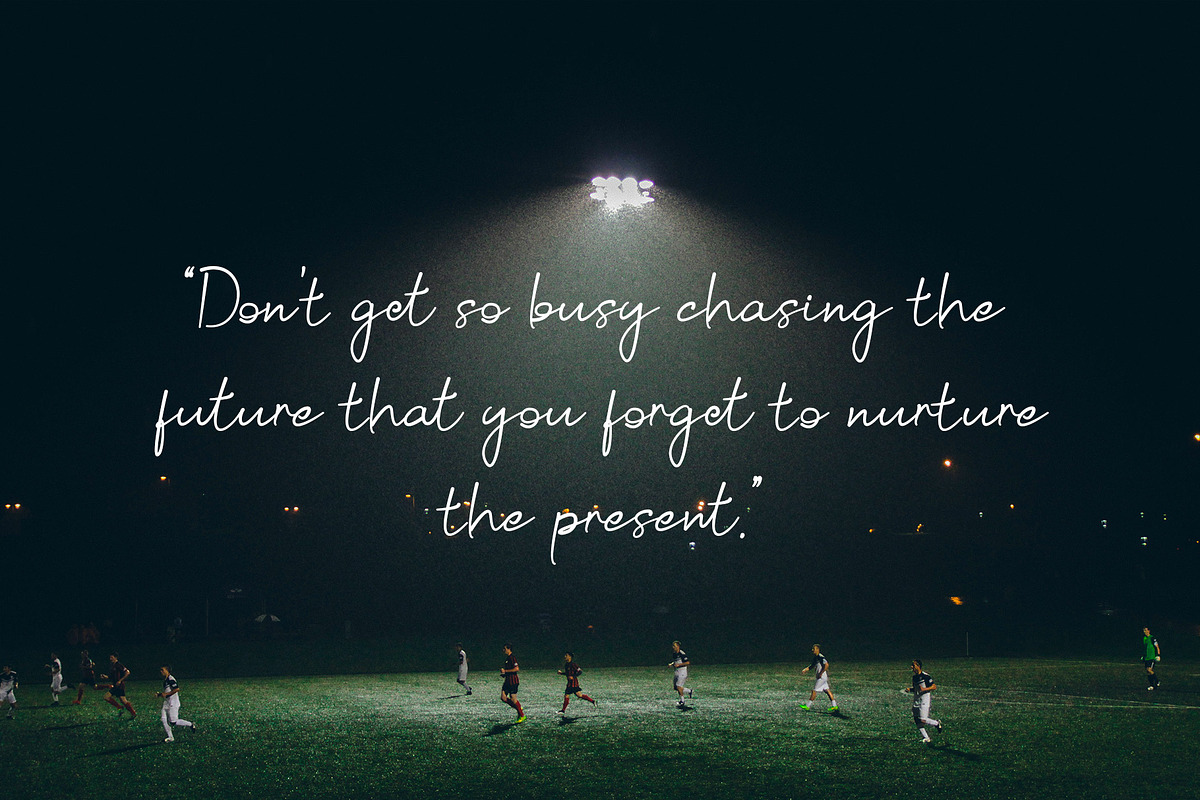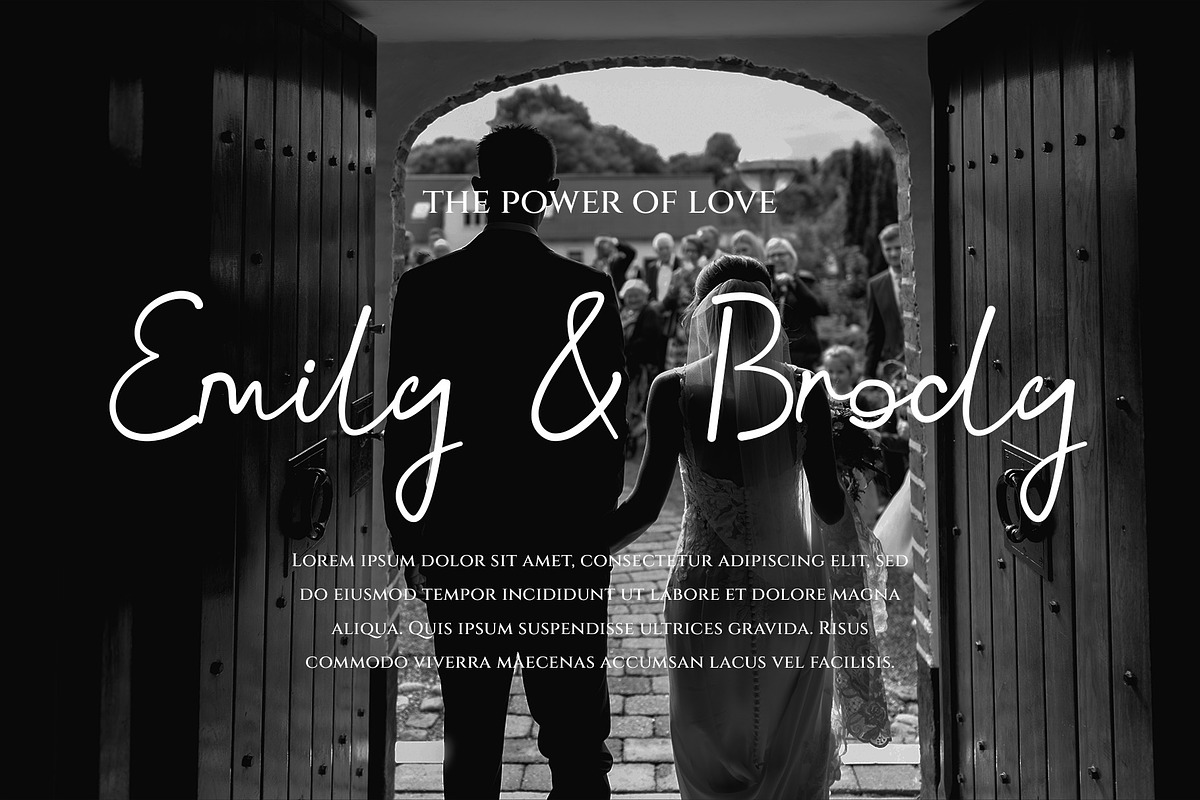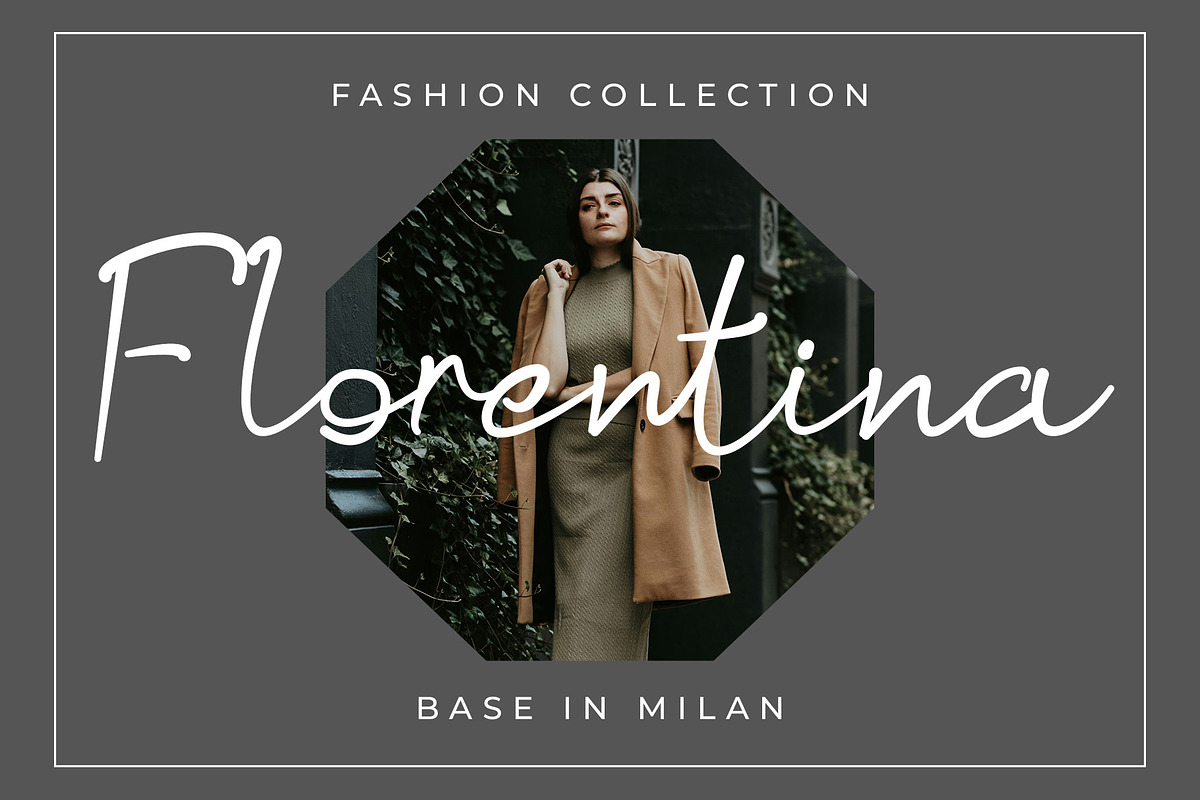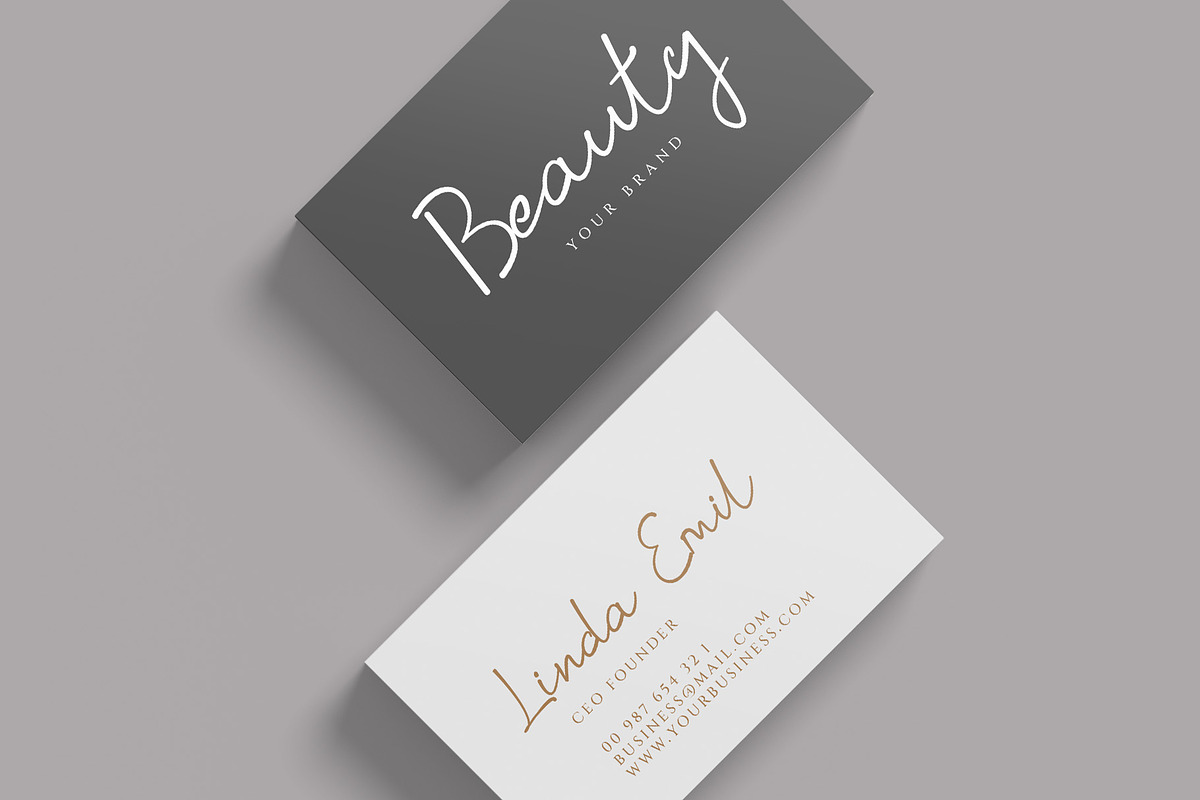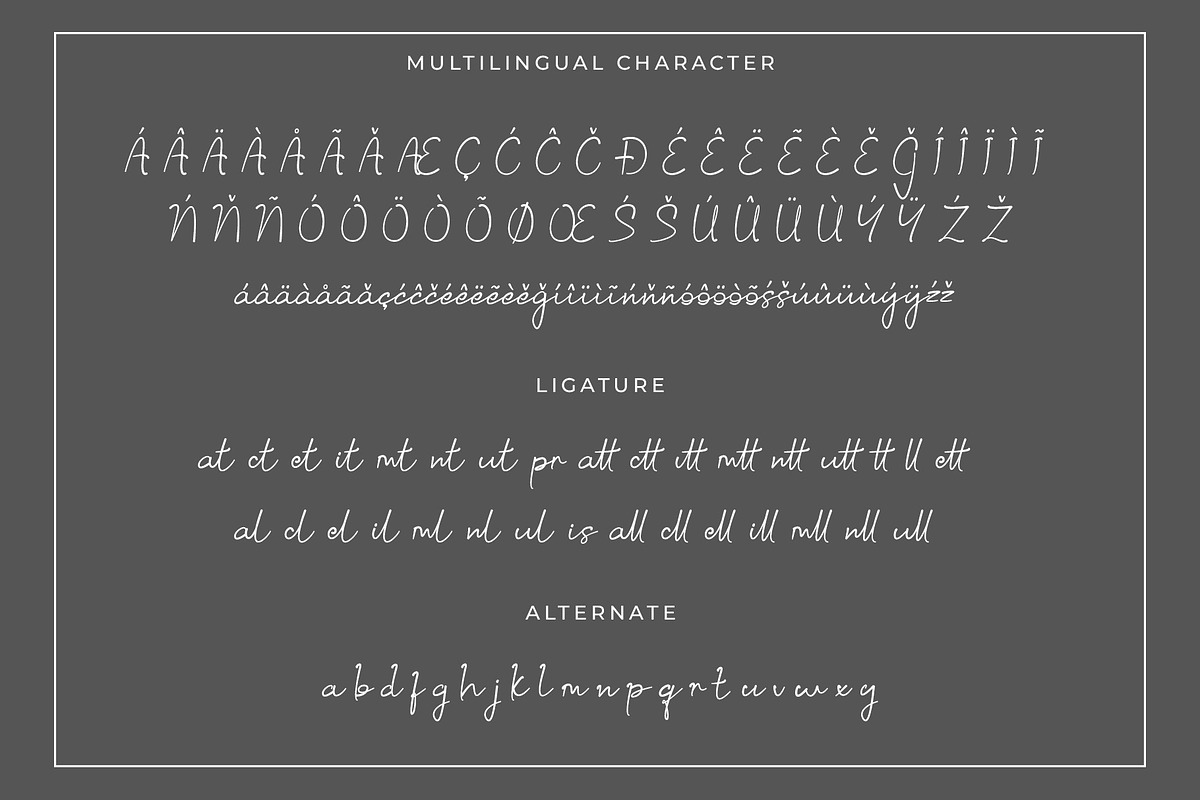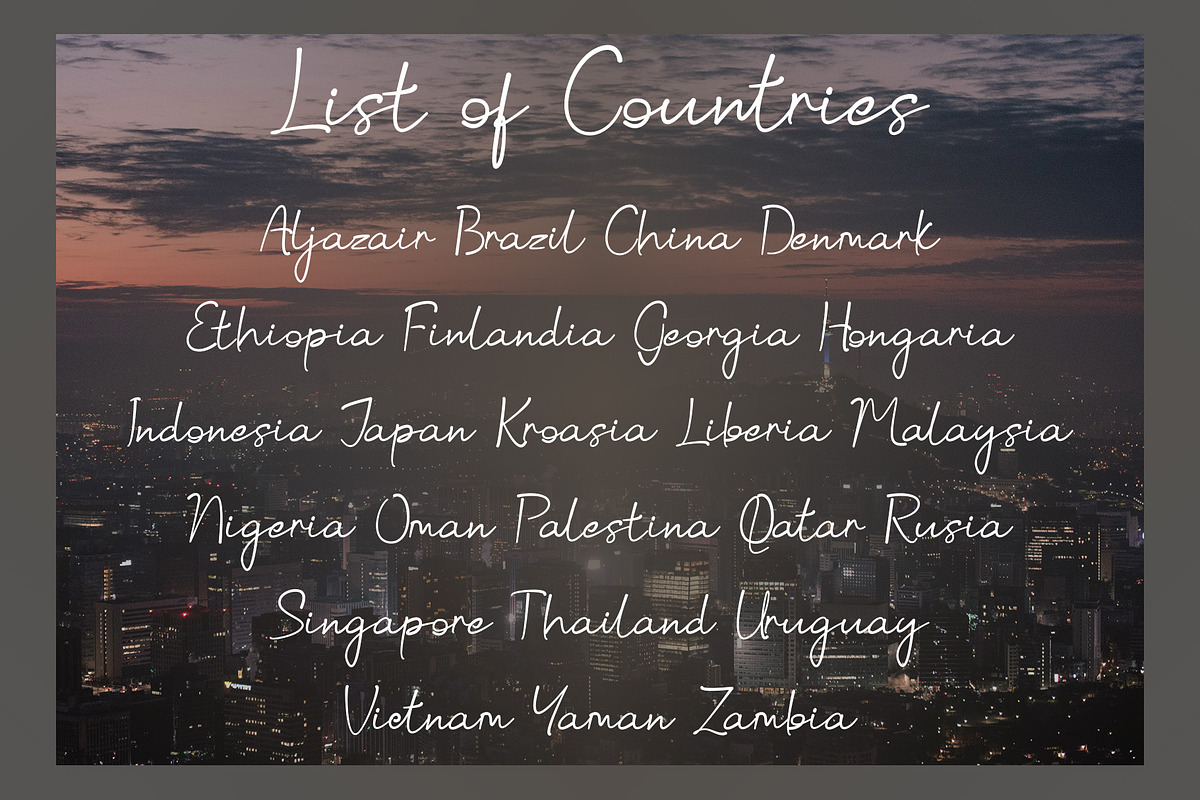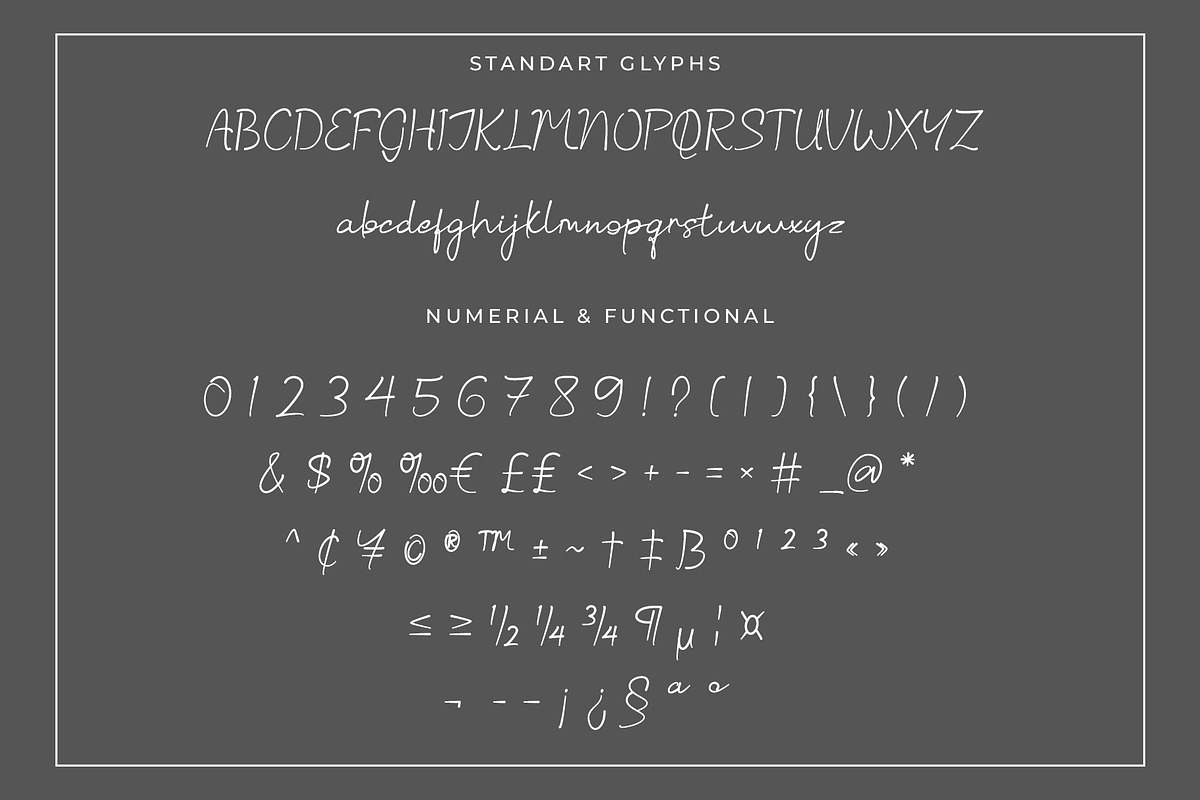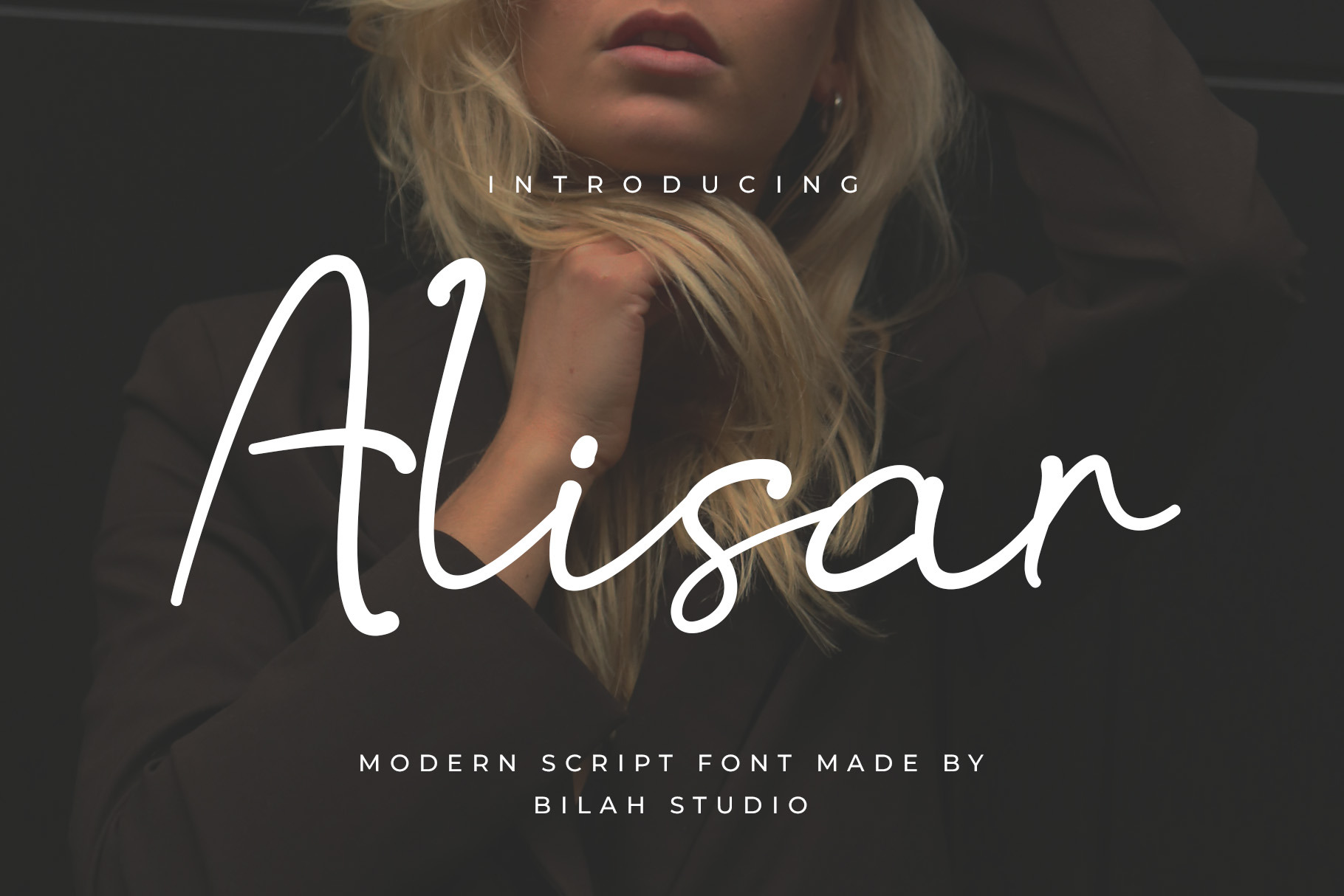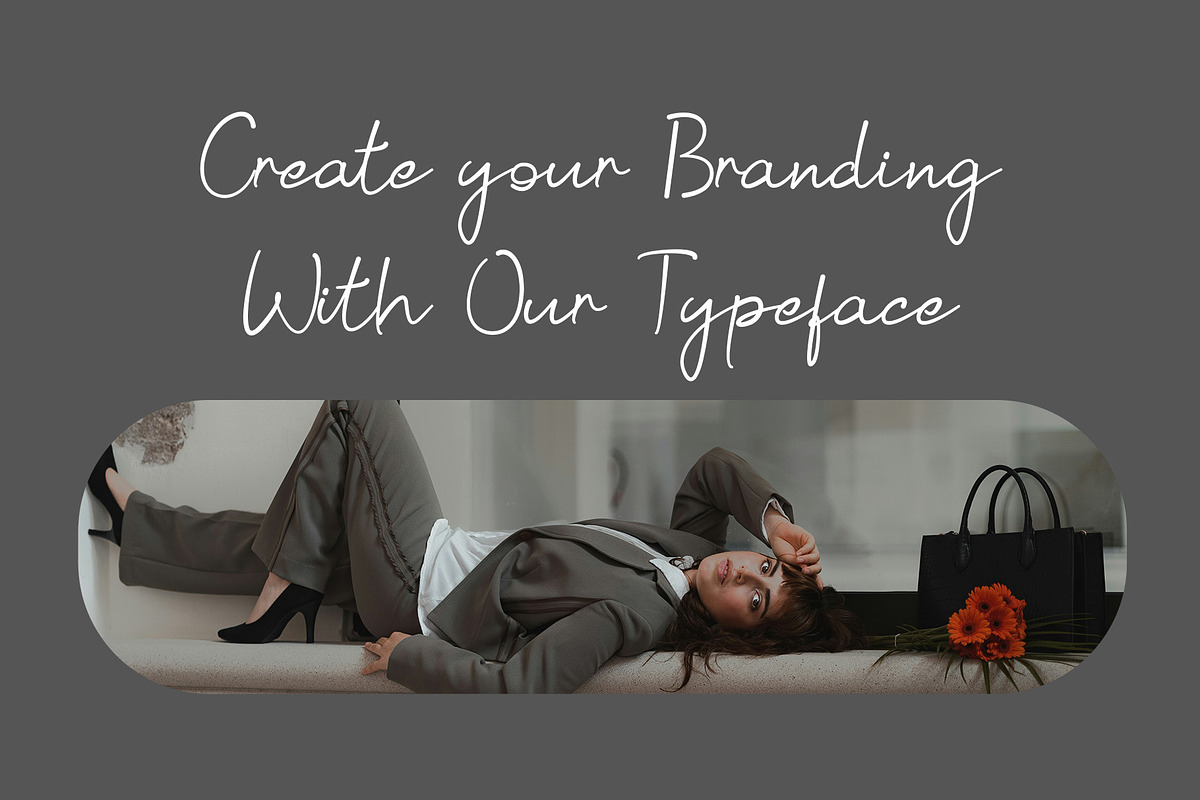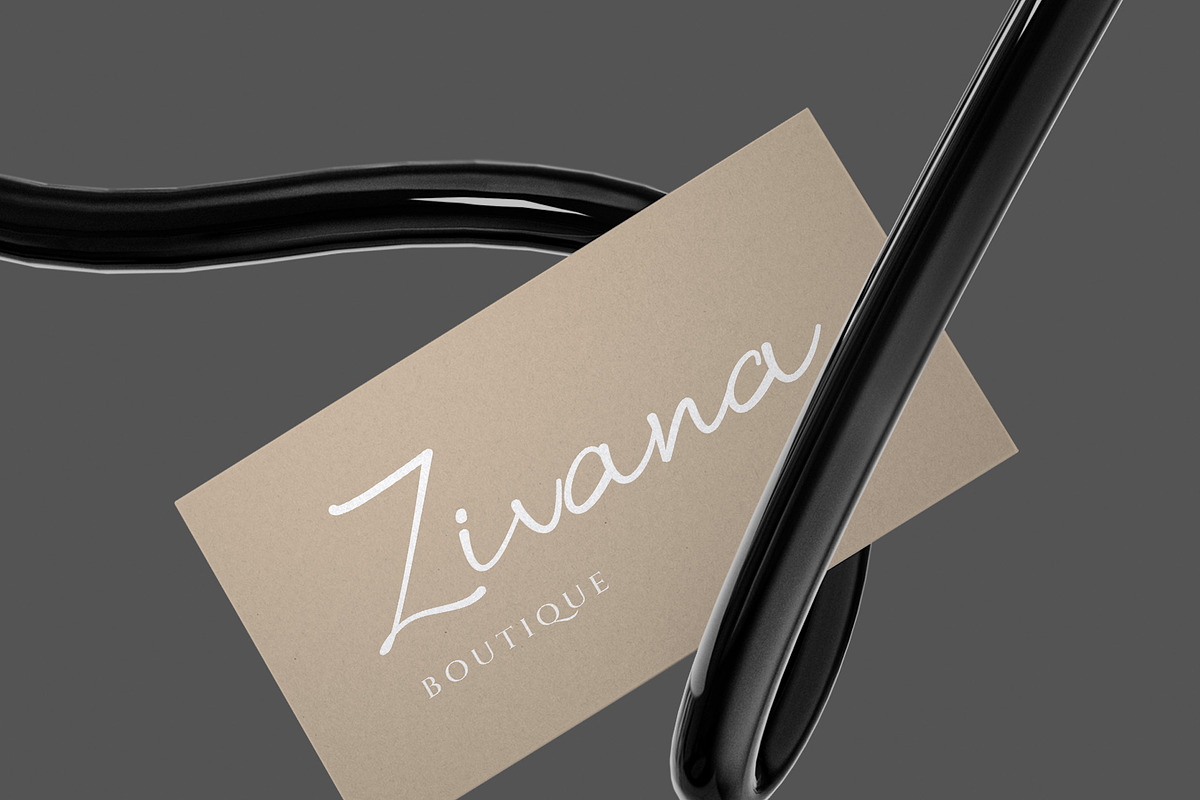
Alisar Modern Script Font
Alisar is a classy script font that exudes elegance and a feminine touch. It is the perfect choice for a wide range of creative and lifestyle design needs including logos, headlines, watermarks, photography, covers, branding, visual displays, magazines, weddings, corporate identities, quotes, album art, and business cards especially for projects that call for a handwritten feel.
Standart Glyphs
Numberial and Functional
Alternate and Ligature